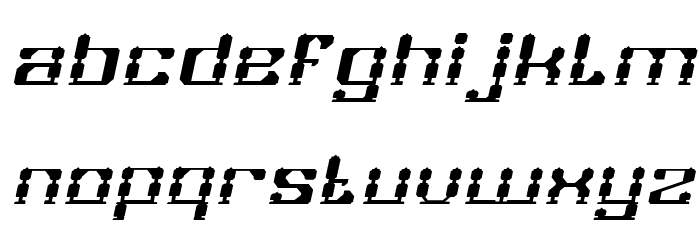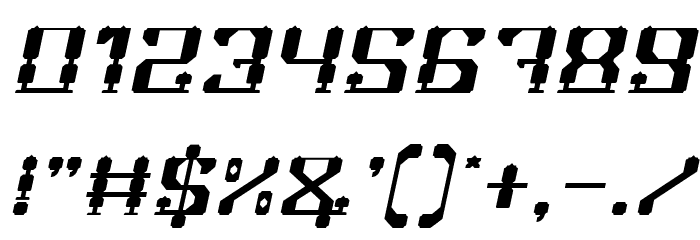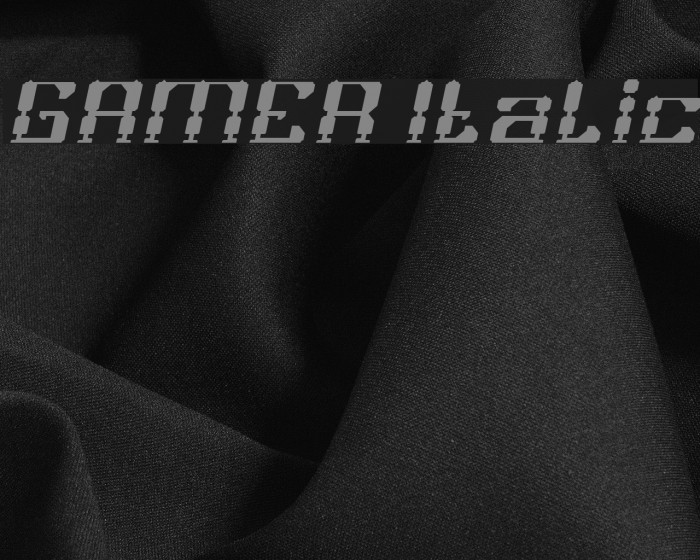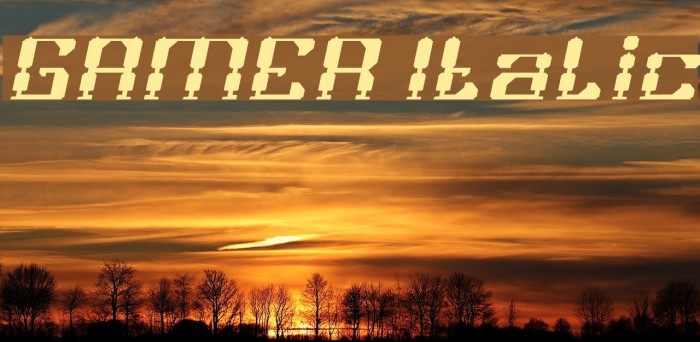
GAMER Italic Font
This font features a bold, angular design with a futuristic and digital aesthetic. The characters are constructed with sharp edges and geometric shapes, giving it a tech-inspired look. The italic style adds a dynamic and forward-leaning appearance, enhancing its modern and energetic feel. The uppercase and lowercase letters maintain a consistent style, with numbers and special characters following the same design principles. This font is ideal for projects that require a strong, impactful presence with a hint of digital or gaming culture.
A bold, angular, and futuristic italic font with a digital aesthetic.
- Proposed Projects: Ideal for video game titles, tech branding, digital media, and futuristic-themed posters.